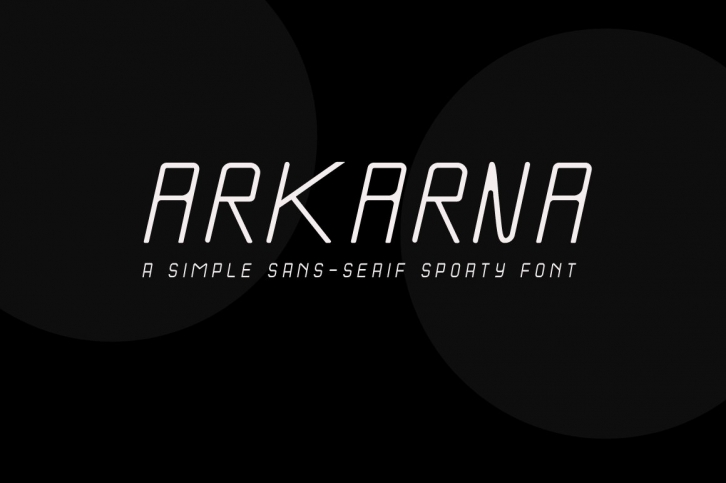
Arkarna Simple Sans Serif FONT Download
Arkarna Simple Sans Serif Font Download
Arkarna Simple Sans Serif is a gorgeous font that was realeased on January 12, 2021. The font can be used in many style contexts and design environments. Perfect for invitations, magazines, websites, logos, and more! It was designed by Gatra Std and the file size is 12.77 MB. Thanks for checking out this font!